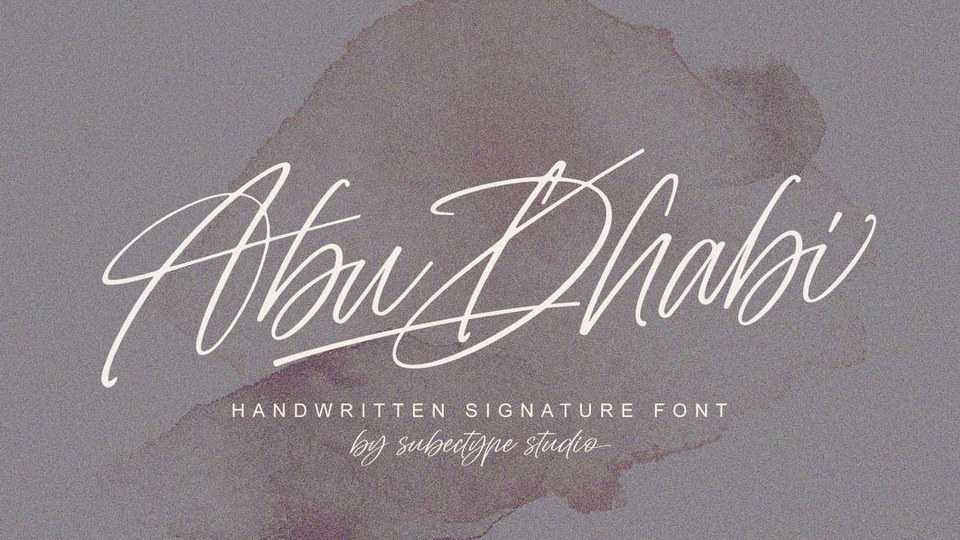
Download Abu Dhabi font, a stylish handwritten signature typeface. Abu Dhabi created for those of you who are needing a touch of clean handwritten signature, chic and modernity for your designs.